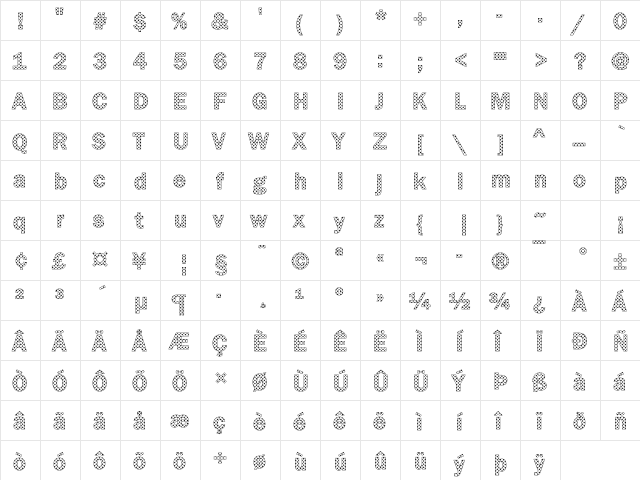
DTCFranklinGotM08 Regular Font Preview
DTCFranklinGotM08 Regular
Design Context for DTCFranklinGotM08 Typeface
DTCFranklinGotM08 offers clean, dependable letterforms without strong stylistic allegiance, making it a practical choice for designers who need flexibility.